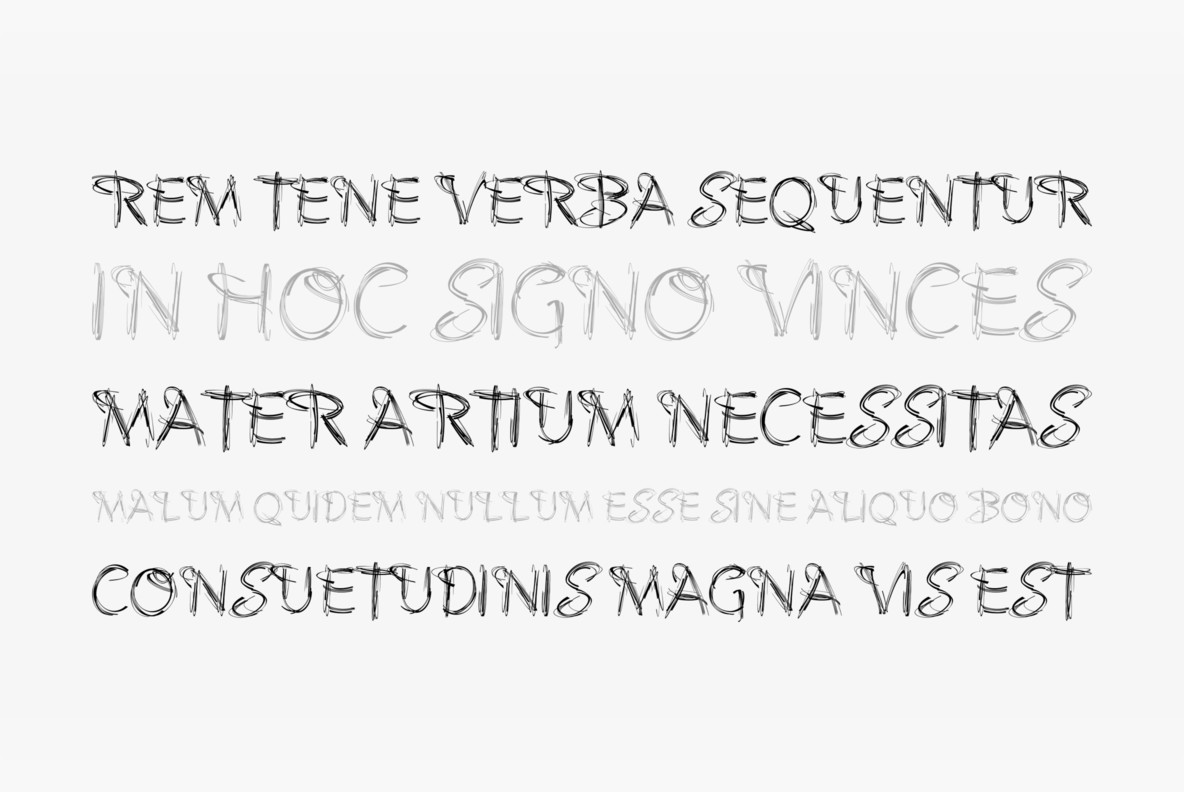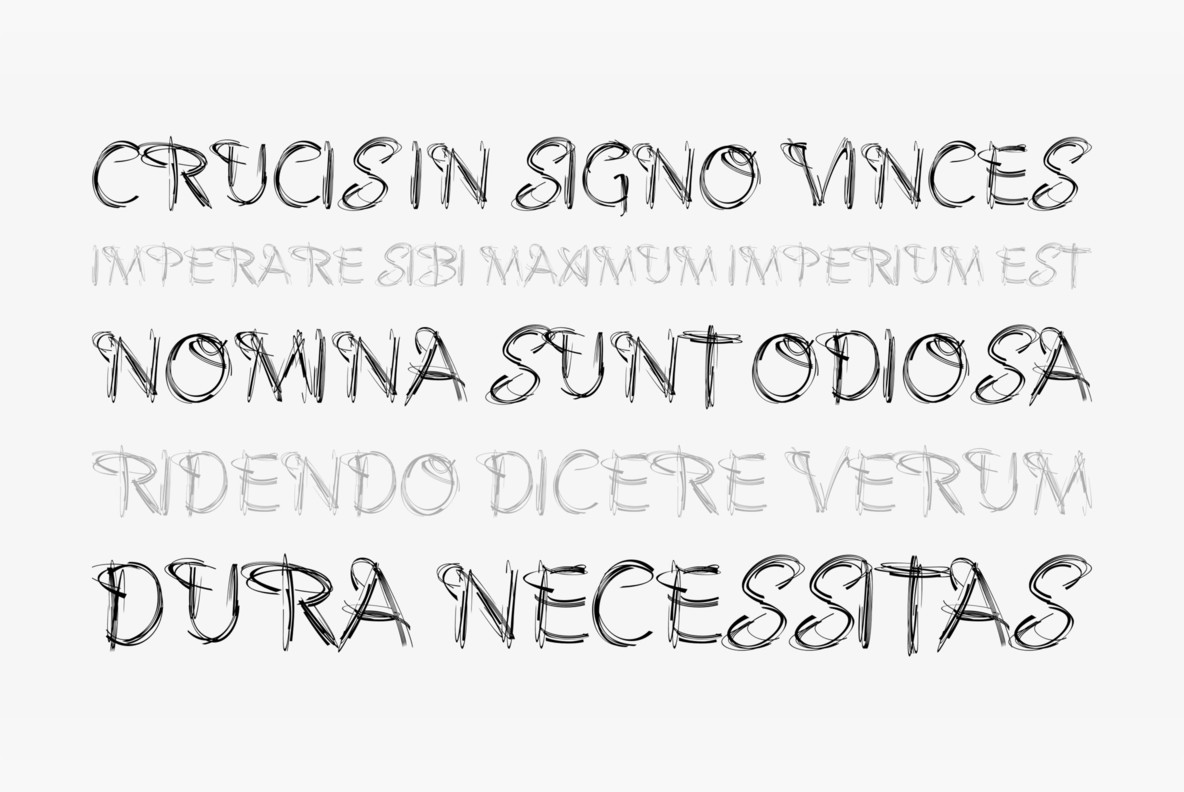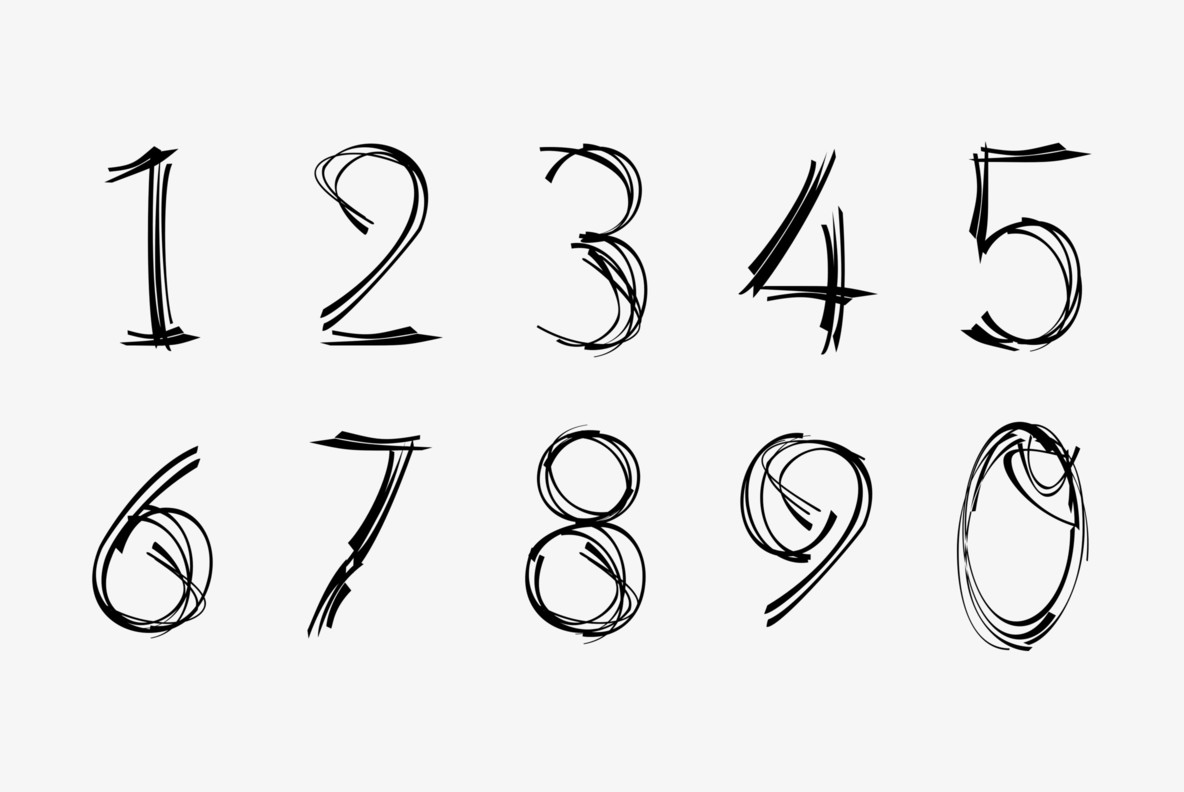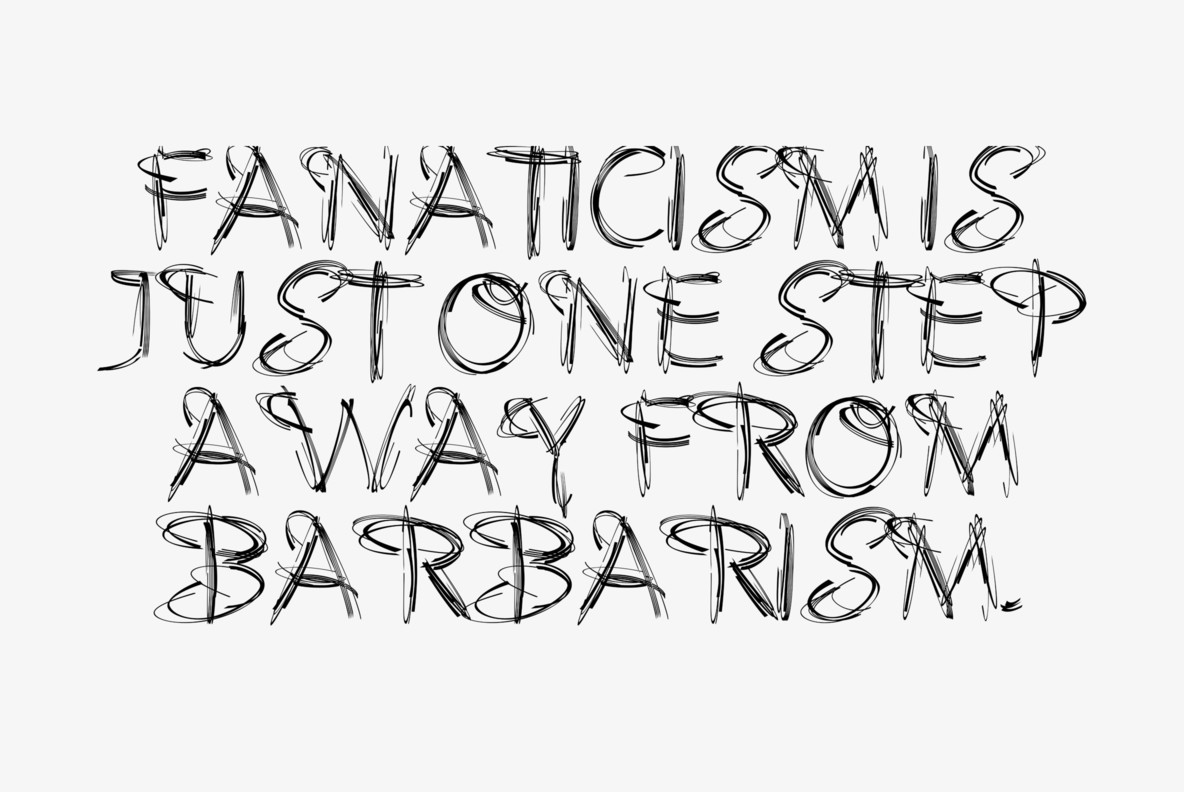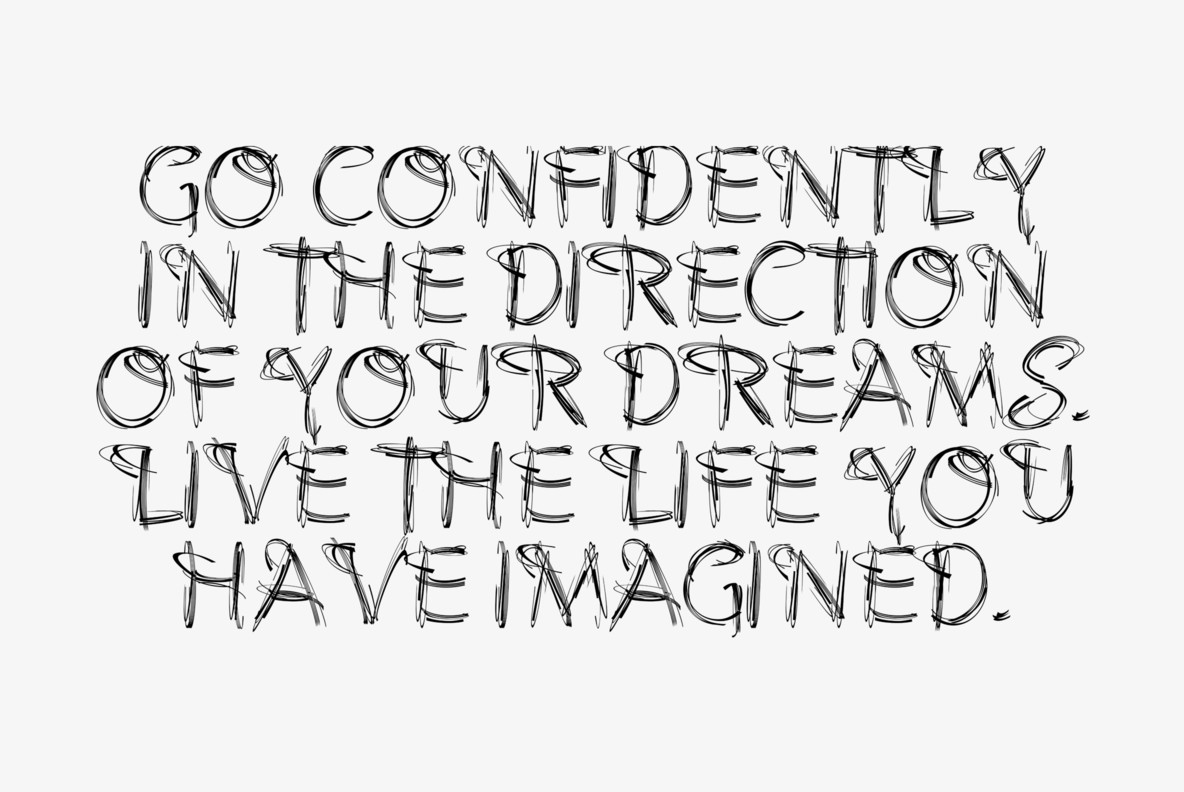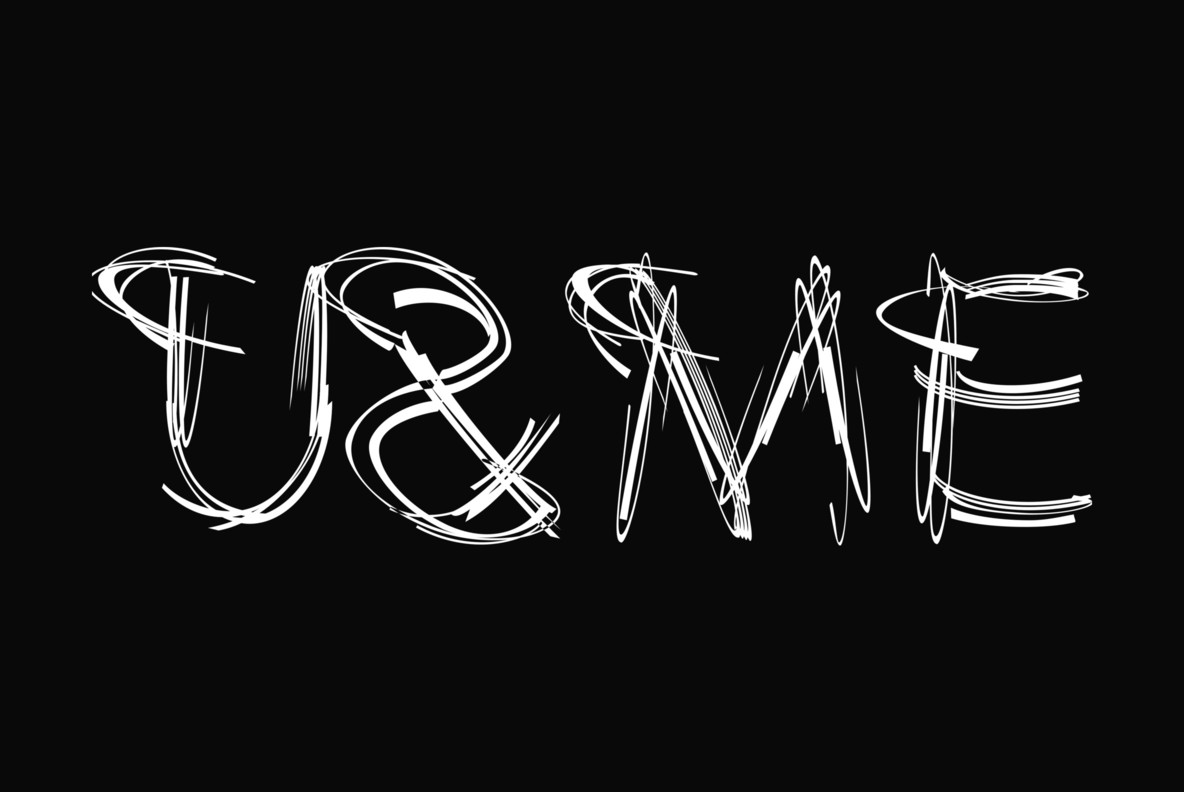
Savage Initials 1
Savage Initials 2
Savage Initials 3
Savage Initials 4
Savage Initials 5
Savage Initials 6
Savage Initials 7
"Savage Initials" are just that, wild, spontaneous capital letters that are meant to be extraordinary embellishments.